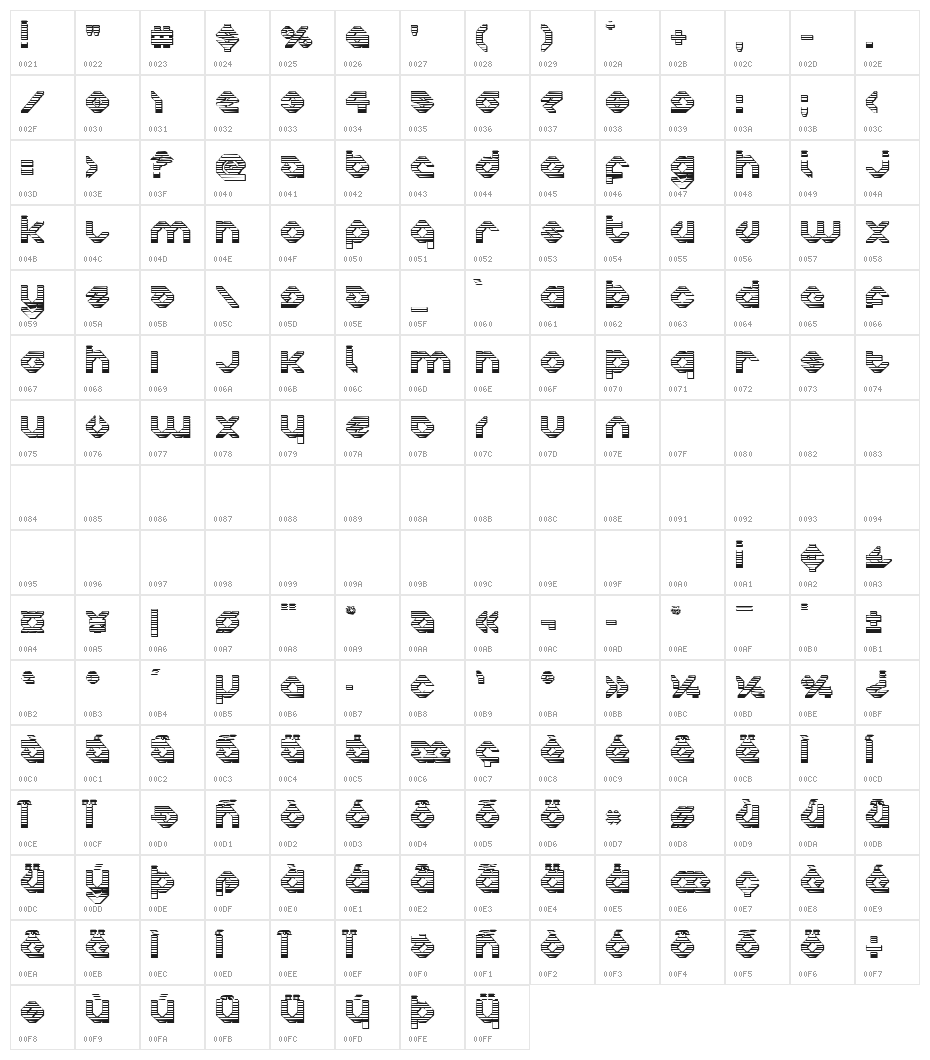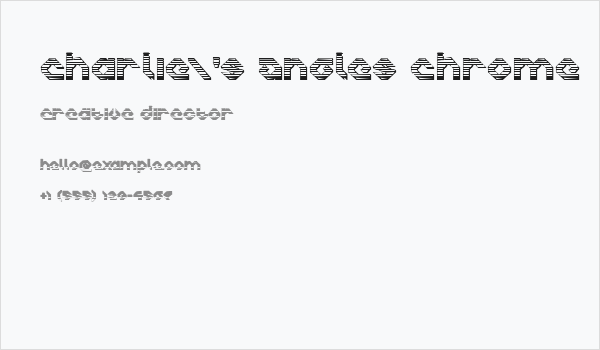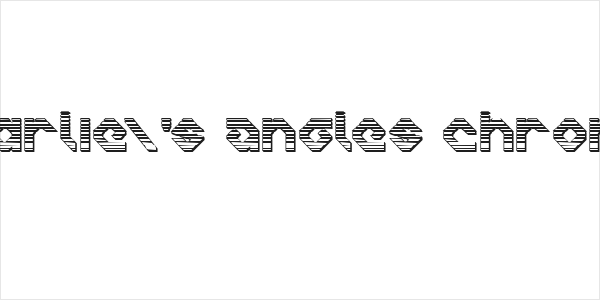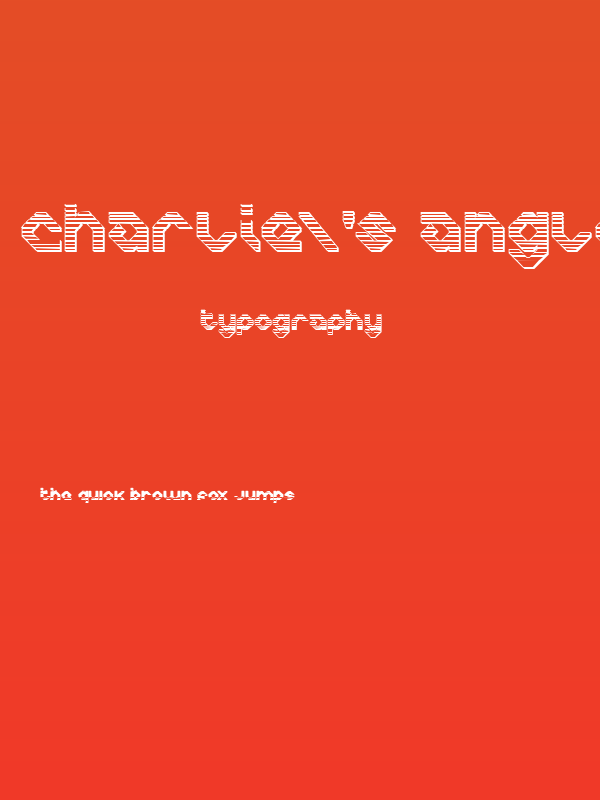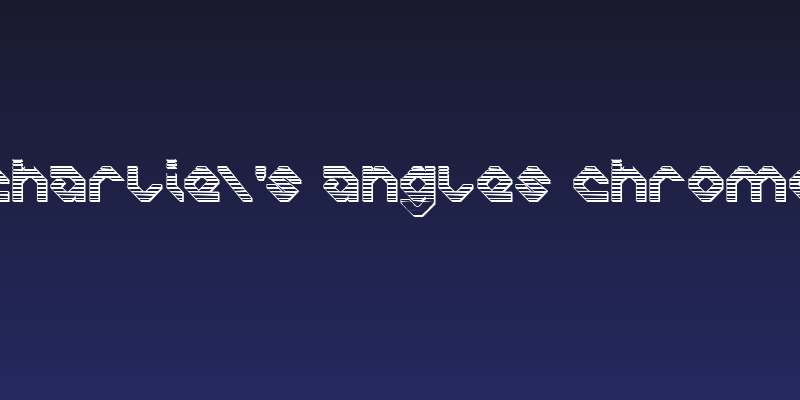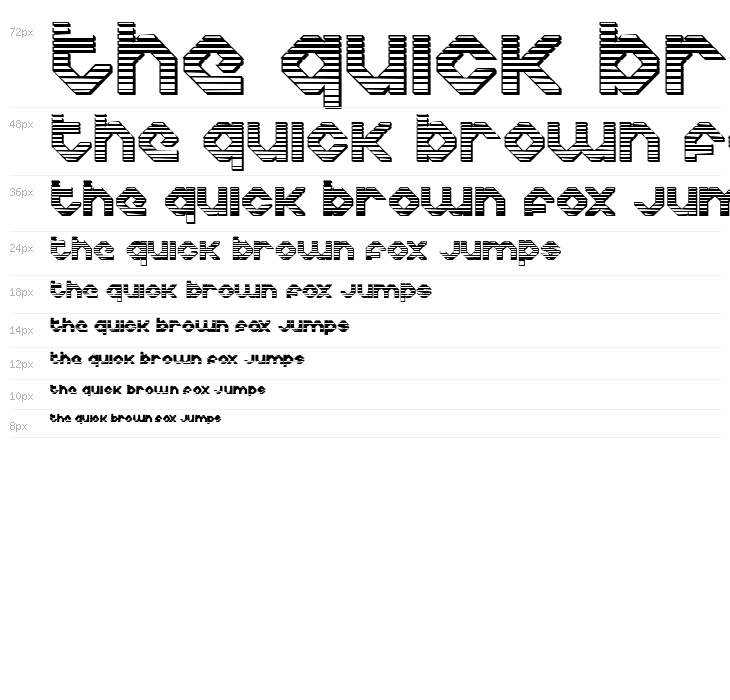
Charlie's Angles Chrome Font
Charlie's Angles Chrome Description
This font features a unique, layered design with a three-dimensional effect created by alternating black and white stripes. Each character is constructed with a geometric, angular style, giving it a futuristic and tech-inspired appearance. The bold lines and sharp angles make it stand out, while the striped pattern adds depth and visual interest. This font is highly decorative and is best suited for creative and eye-catching designs. The uppercase and lowercase letters maintain a consistent style, and the numerals and special characters are equally distinctive, ensuring a cohesive look across all text elements.
| Proposed Projects | Ideal for futuristic designs, tech-themed projects, posters, and branding that requires a bold statement. |